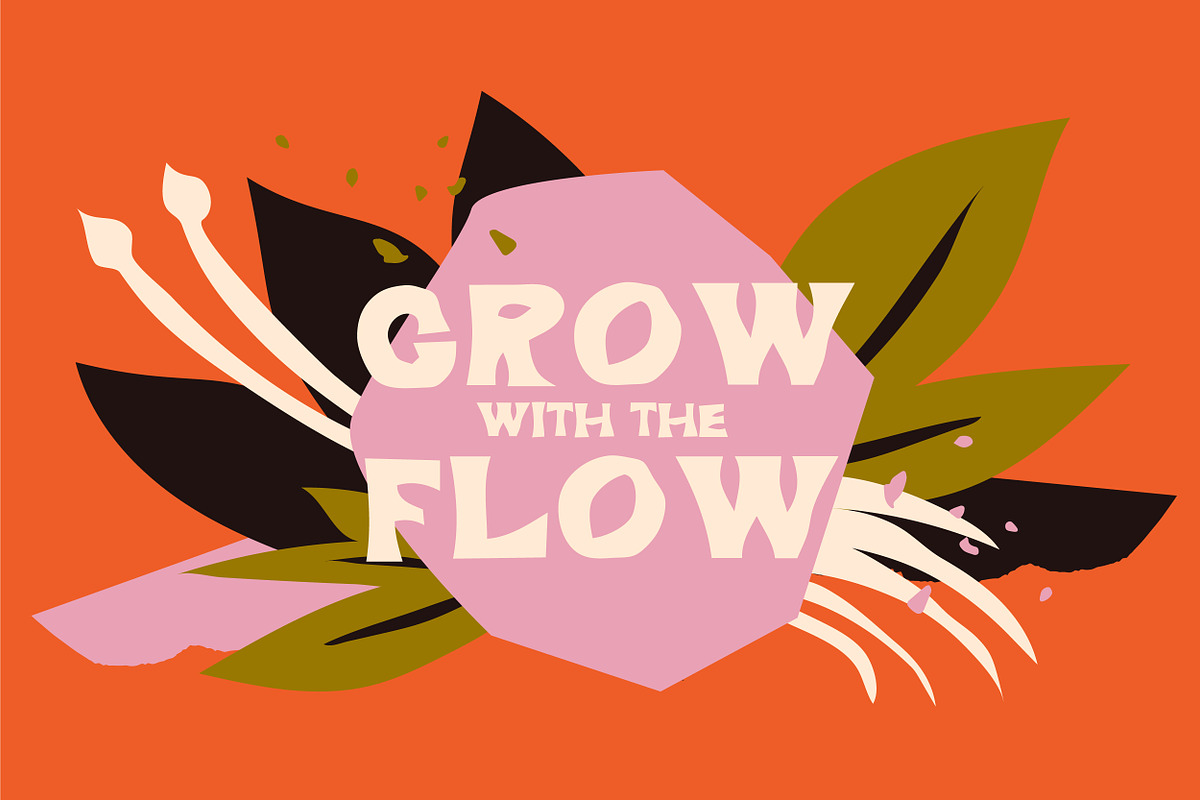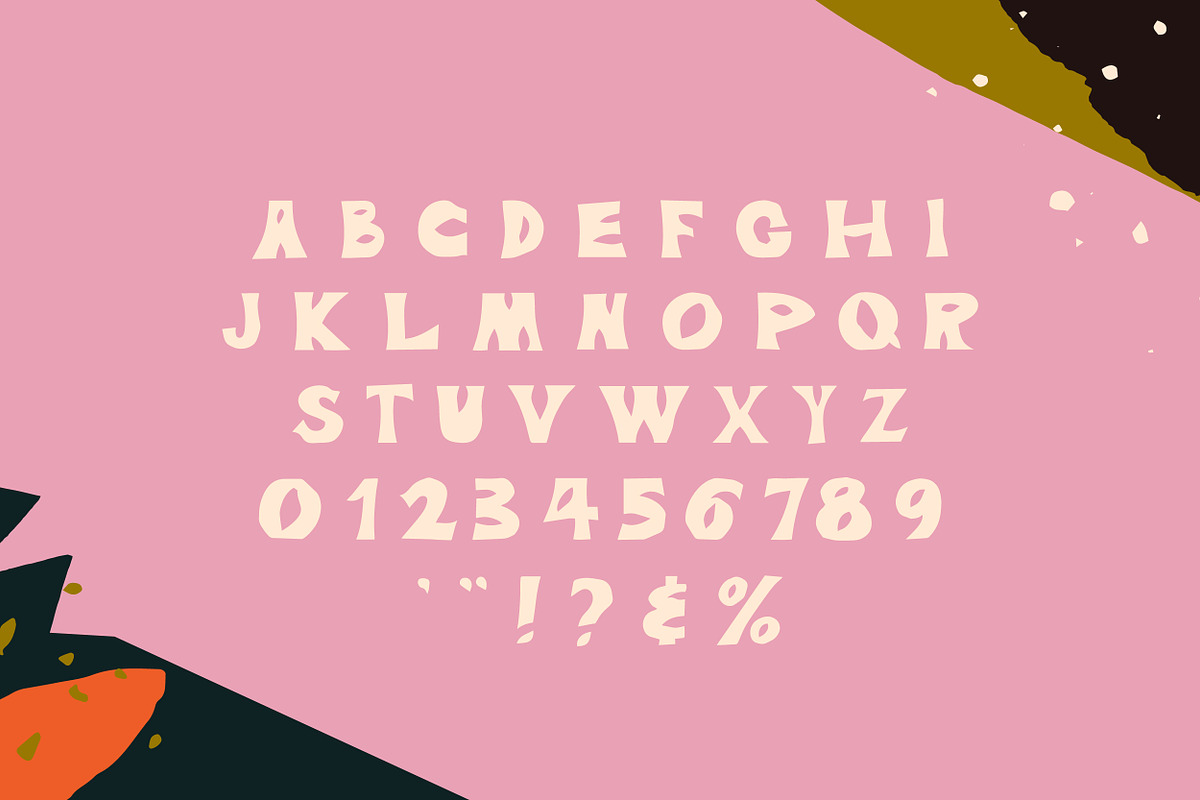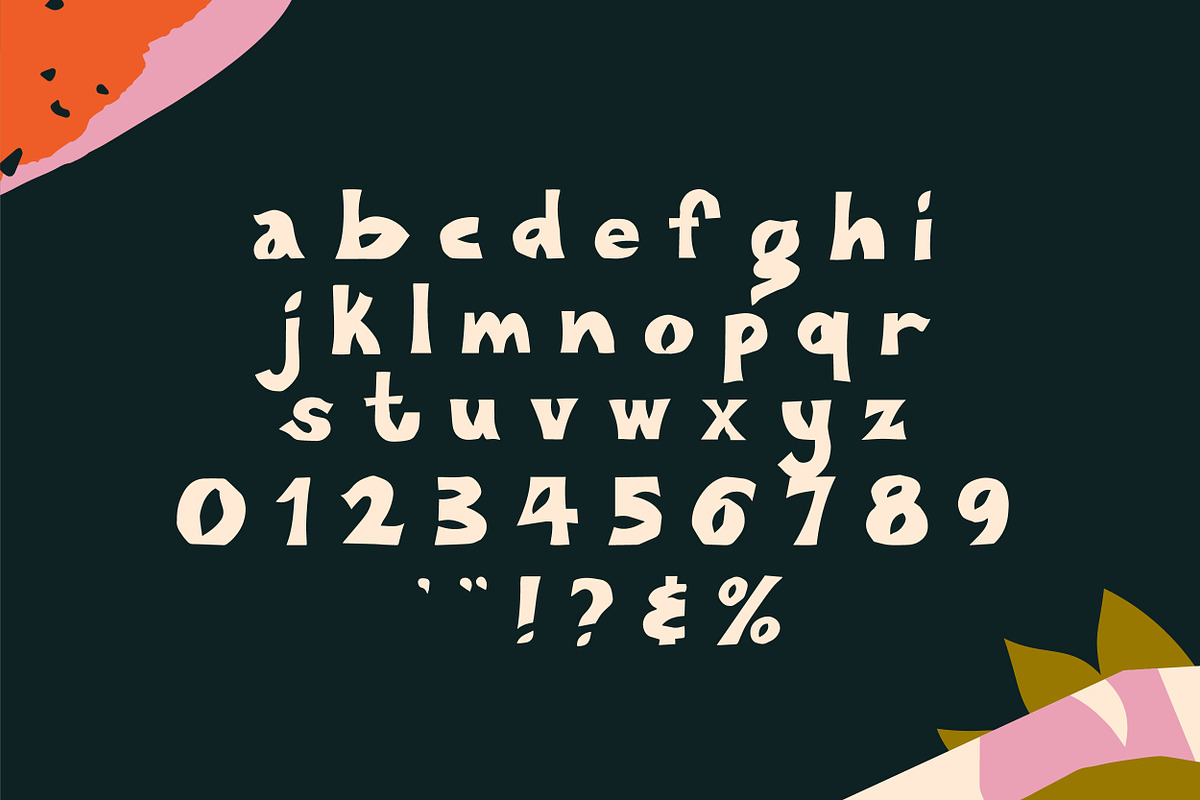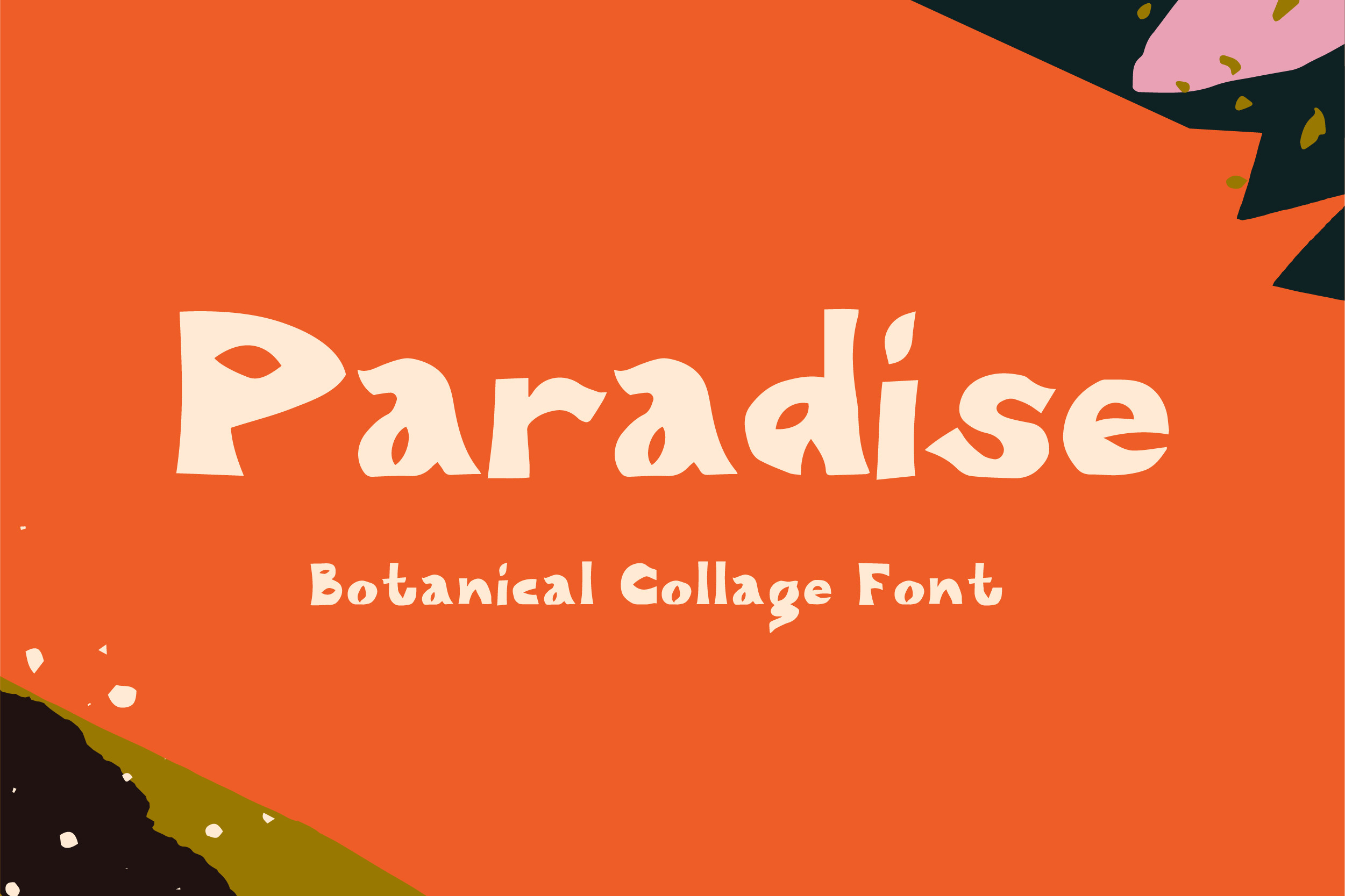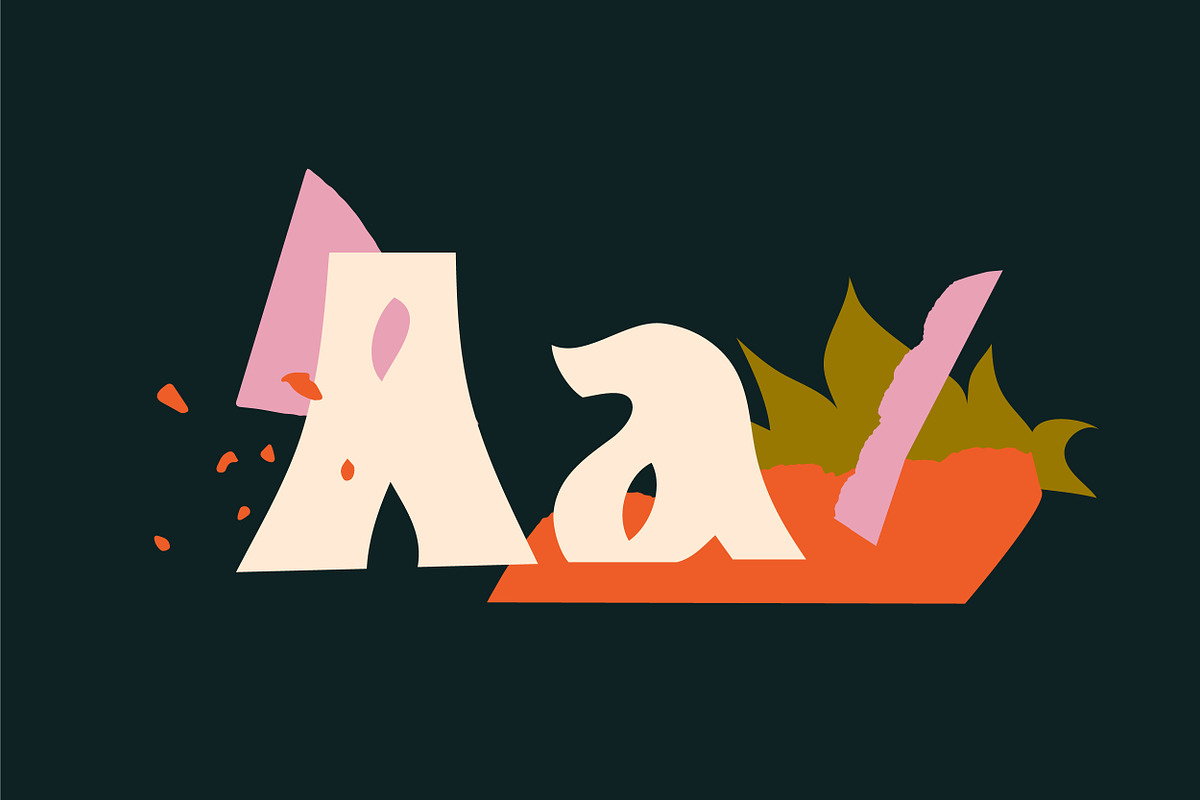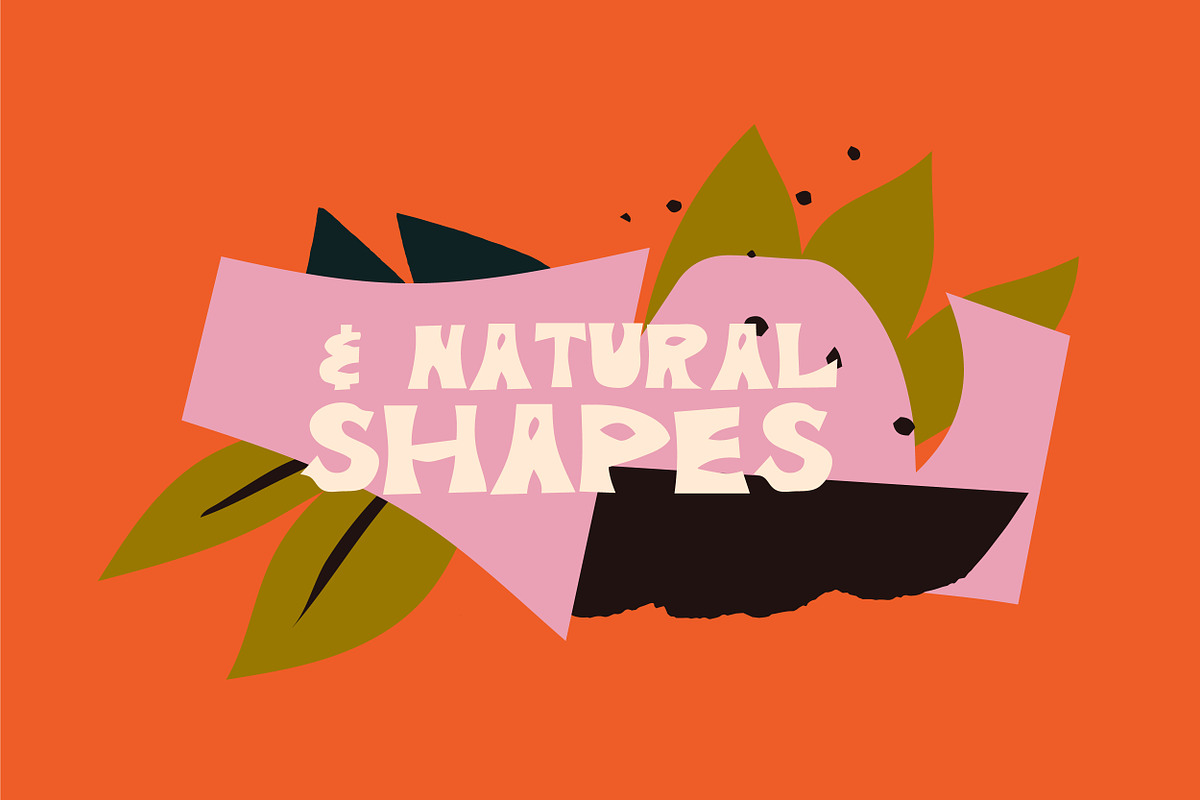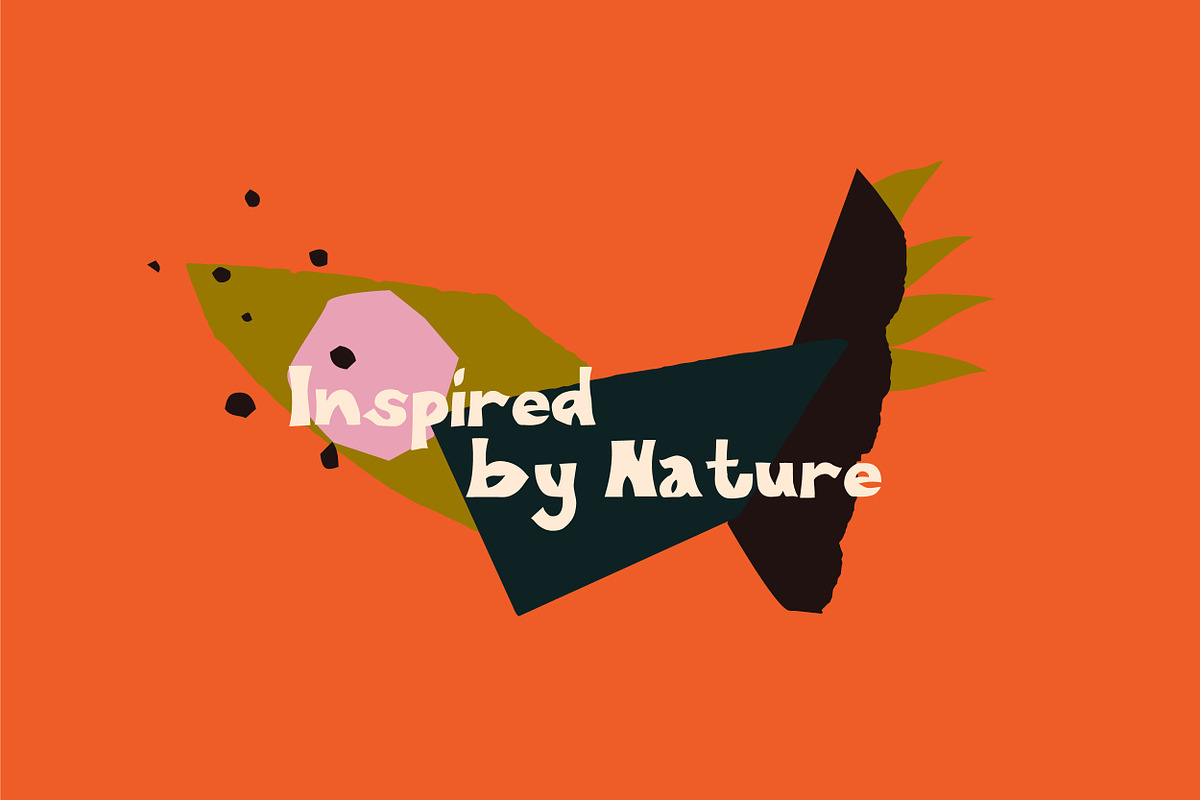
Paradise | Botanical Collage Font
Discover Paradise, a botanical beauty for your designs!
Inspired by the lush embrace of nature and the artistry of collage, Paradise is a font that blooms with elegance and whimsy. Its delicate curves and organic forms evoke the feeling of a secret garden, while its bold strokes command attention.
Perfect for invitations, branding, packaging, and more, Paradise will add a touch of natural beauty to any project. Let your designs flourish with this enchanting font.
- Letters in all caps
- Letters in lowercase
- Numbers 0 - 9
- Most Punctuation
- Most common symbols